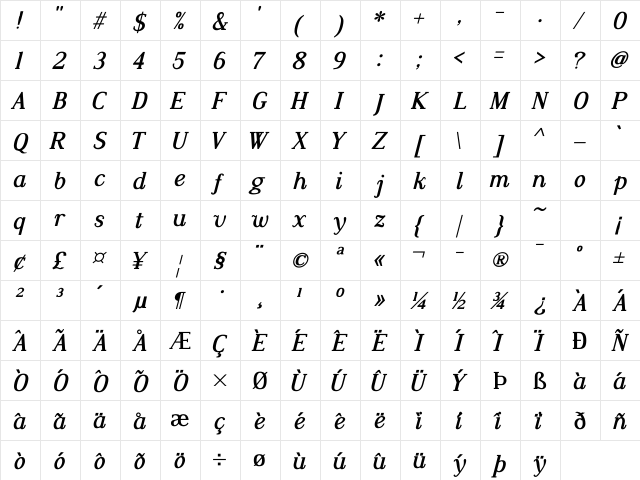
Dustismo Roman Regular
| Designer | Dustin Norlander |
Design Context for Dustismo Roman Typeface
Dustismo Roman is a composed and adaptable typeface that performs quietly and consistently across a wide range of design contexts.